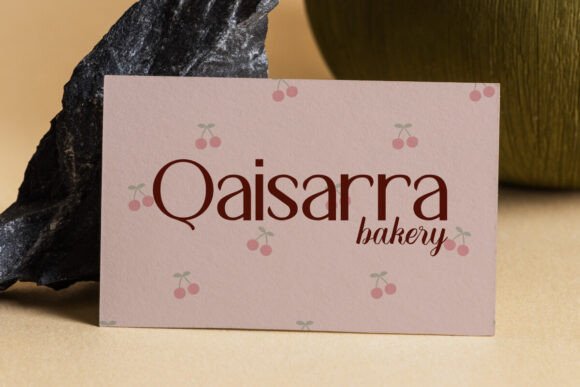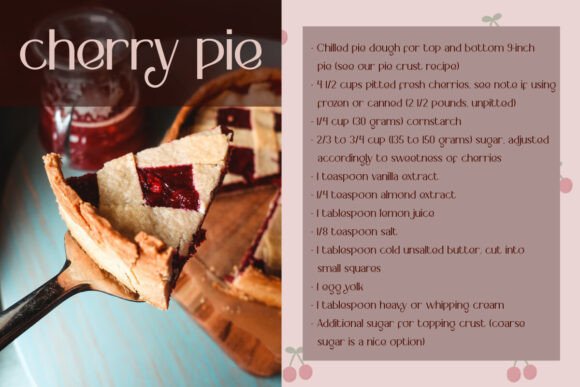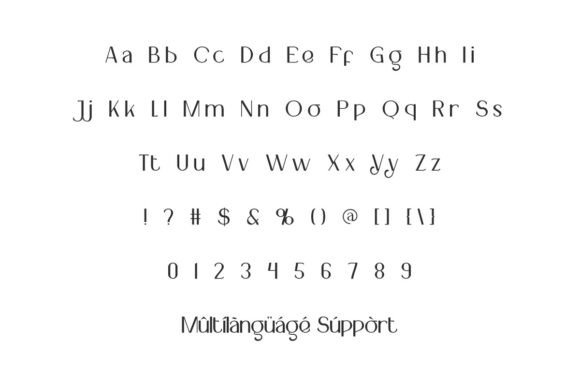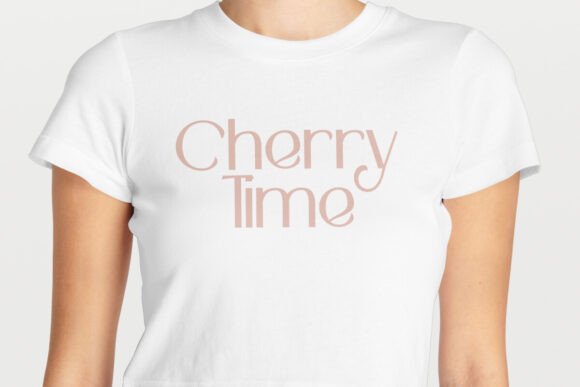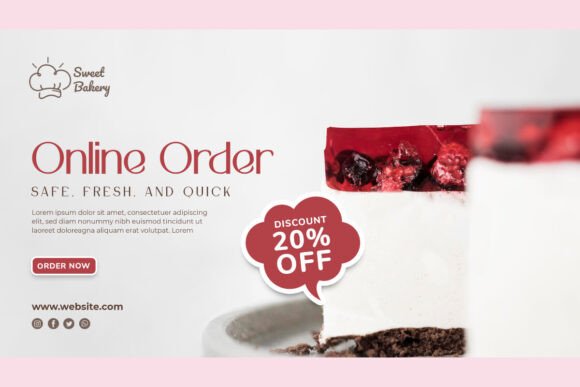
Discover the Stunning Cherry Today Font: Elevate Your Designs with Modern Elegance
I’ll never forget the time I was working on a project for a high-end fashion brand, and I was struggling to find the perfect font to match their sleek and sophisticated vibe. The client was particular about the typography, and I had to deliver. That’s when I stumbled upon the Cherry Today Font, and it instantly became my go-to choice. In this article, I’ll share my experience with this beautiful modern stylish sans display font and explore its features, uses, and alternatives.
An Honest Review of Cherry Today Font
- ✨ Beautiful shape: The font has a unique and elegant shape that will never go out of style.
- ✅ Versatility: It’s perfect for a wide range of designs, including brochures, business cards, custom designs, covers, gift boxes, invitations, labels, posters, product packaging, quotes, screen printing, stationery, websites, and more!
- 🎉 Modern and stylish: The font has a fresh and contemporary look that will instantly elevate your designs.
While the Cherry Today Font is an excellent choice, there are a few things to keep in mind:
- 🤔 Limited use in body text: Due to its elegant and stylized nature, this font might not be the best choice for body text. It’s better suited for headings, titles, and short phrases.
- ⚠️ Requires careful pairing: To avoid visual overload, pair the Cherry Today Font with a complementary font that’s clear and easy to read.
The Backstory of Cherry Today Font
While the origins of the Cherry Today Font are unclear, it’s likely that it was designed with inspiration from modern typography and elegant script fonts. The designer might have aimed to create a font that’s both stylish and versatile, perfect for a wide range of applications.
| Font Name | Cherry Today Font |
| Author | vintype |
Q: What type of designs is Cherry Today Font best suited for?
A: Cherry Today Font is perfect for designs that require a modern, elegant, and sophisticated look, such as brochures, business cards, custom designs, and more.
Q: Can I use Cherry Today Font for body text?
A: While it’s possible to use Cherry Today Font for body text, it’s recommended to use it for headings, titles, and short phrases due to its stylized nature.
Q: Is Cherry Today Font suitable for digital use?
A: Yes, Cherry Today Font is suitable for digital use, including websites, social media graphics, and digital advertising.